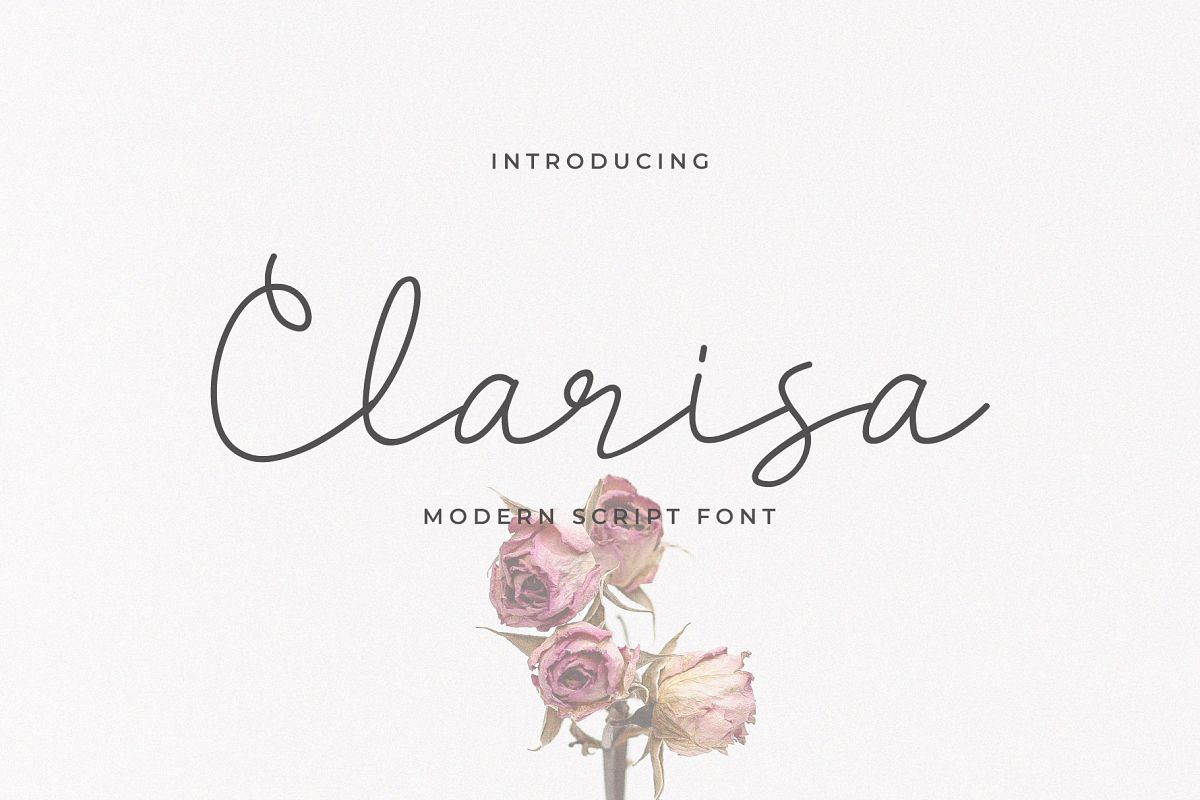
Clarisa Script Font
Clarisa
Clarisa Script Font is an elegant script font. It has a dancing baseline which will give your design a fresh and modern feel. It’s perfect for greeting cards, branding materials, business cards, quotes, posters, and every other design which needs to look upscale and chic!